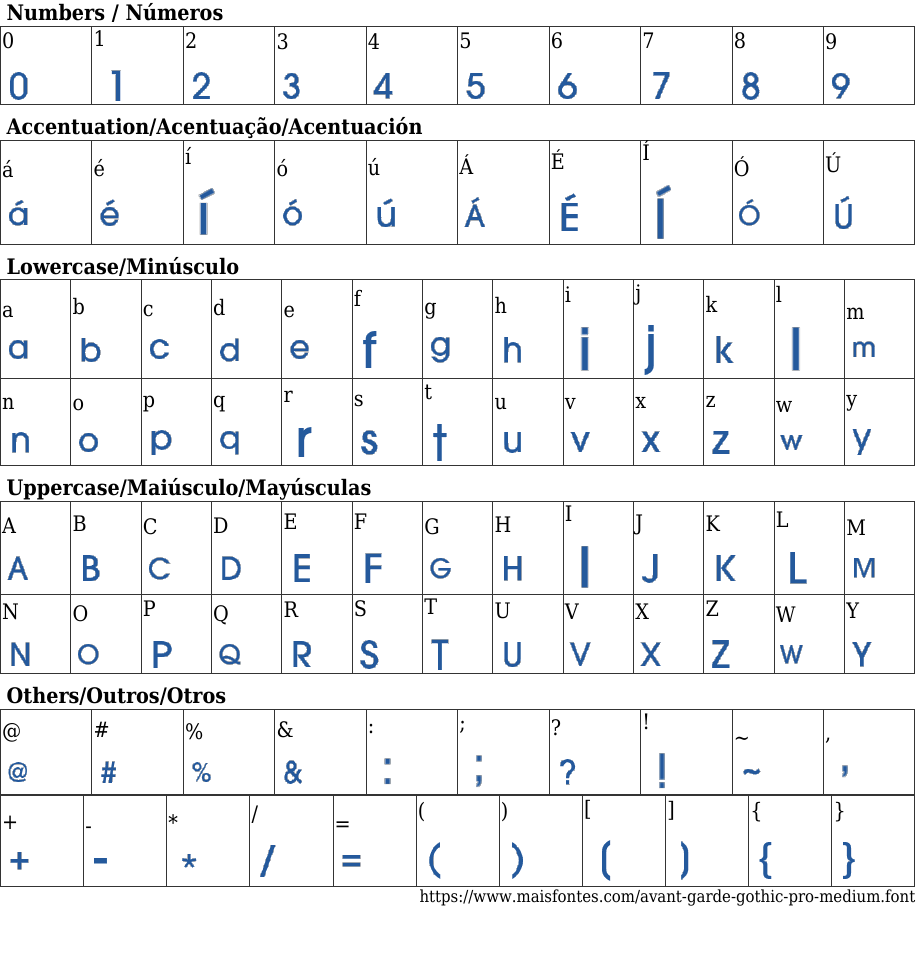
Avant Garde Gothic Font
Avant Garde Gothic Font - Itc avant garde gothic fonts and font family from monotype imaging at fonthaus.com. Ned brunnel’s itc avant garde mono of 1983 consists of 4 fonts in 2 weights in a single.